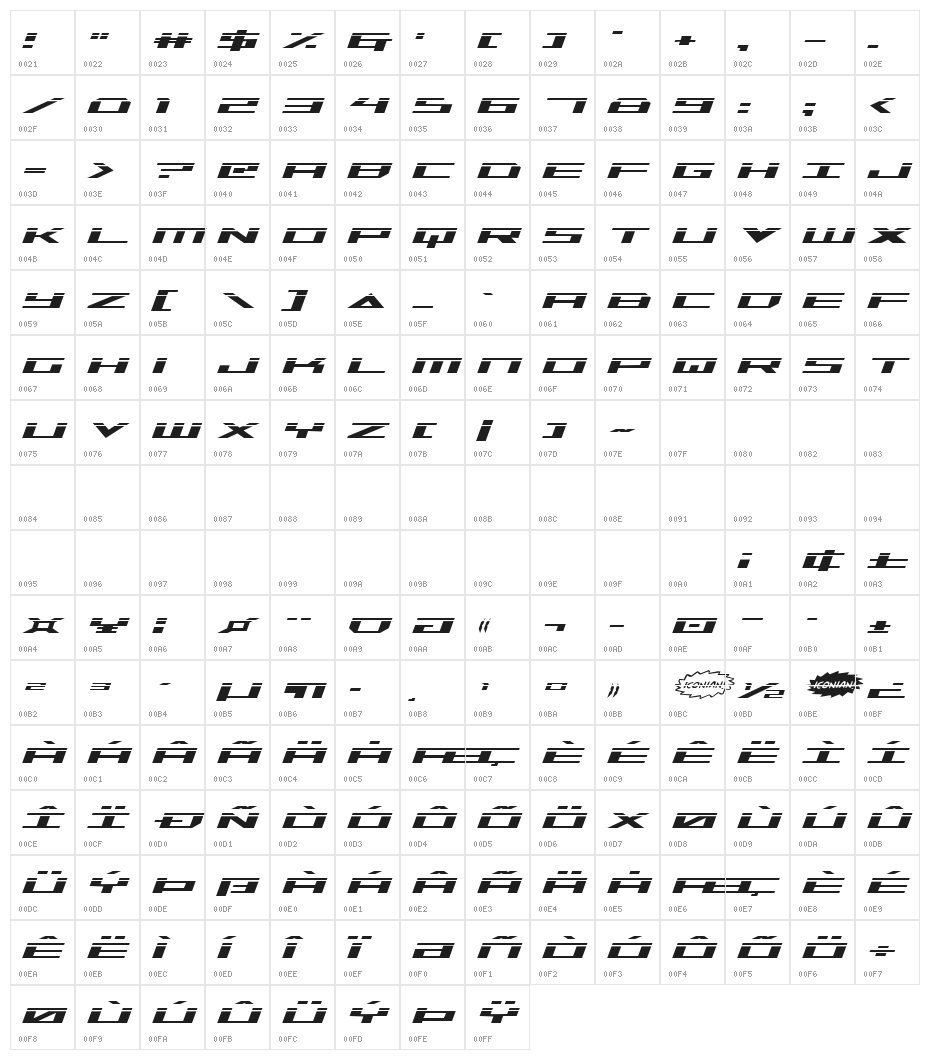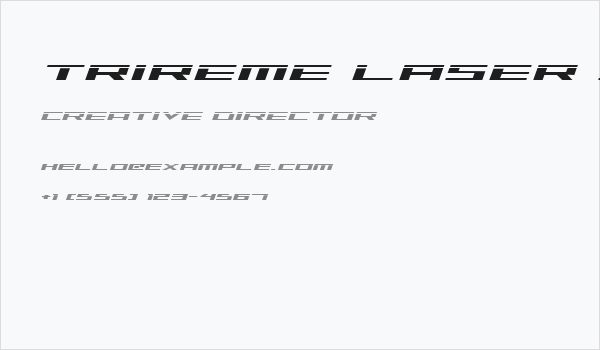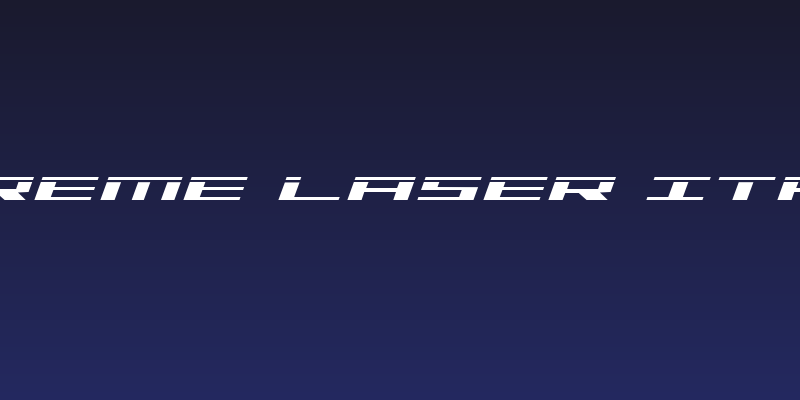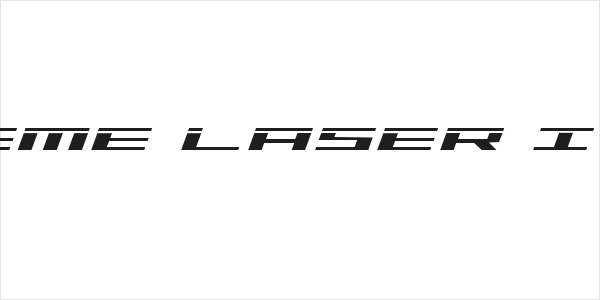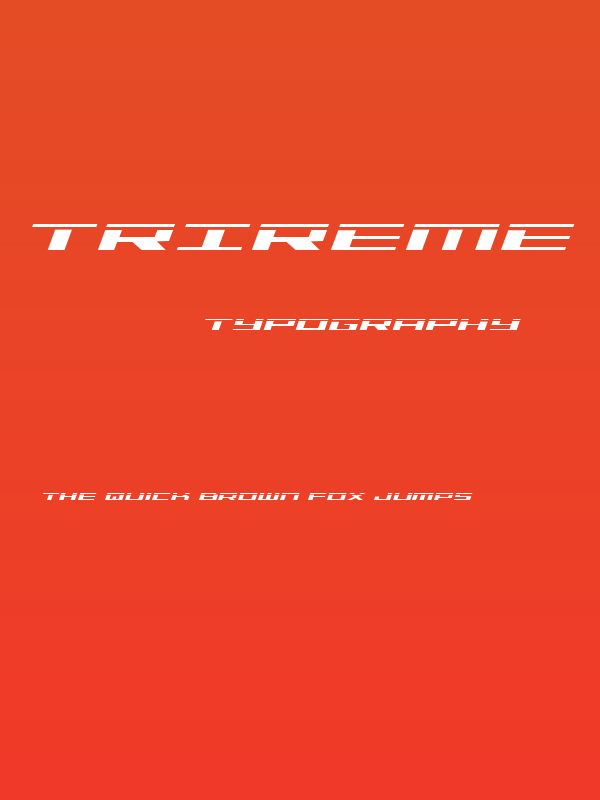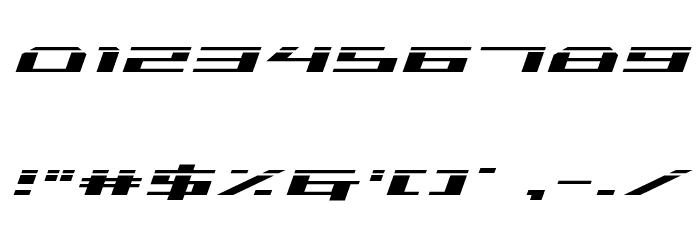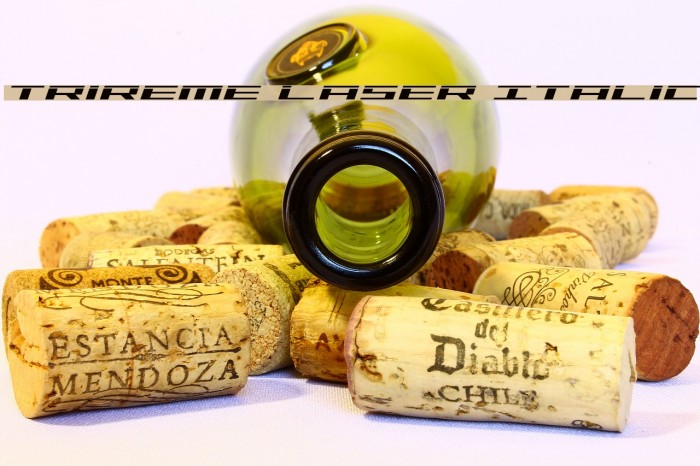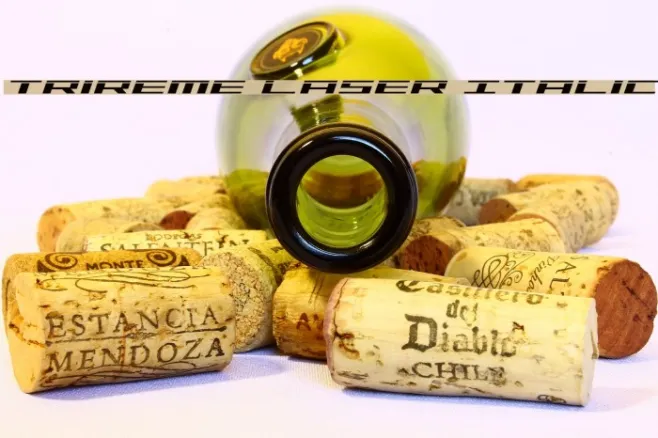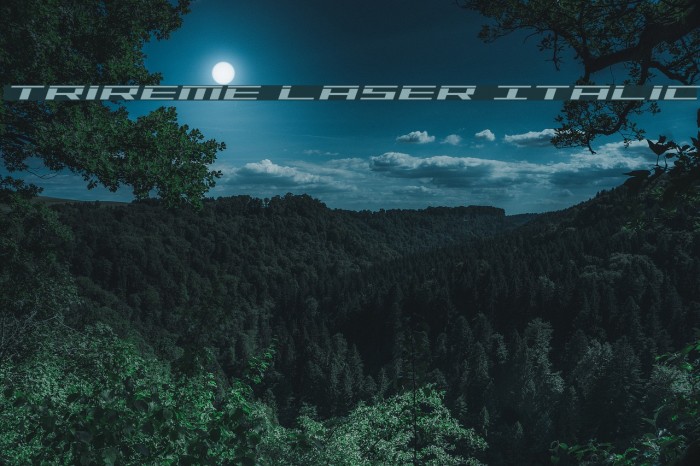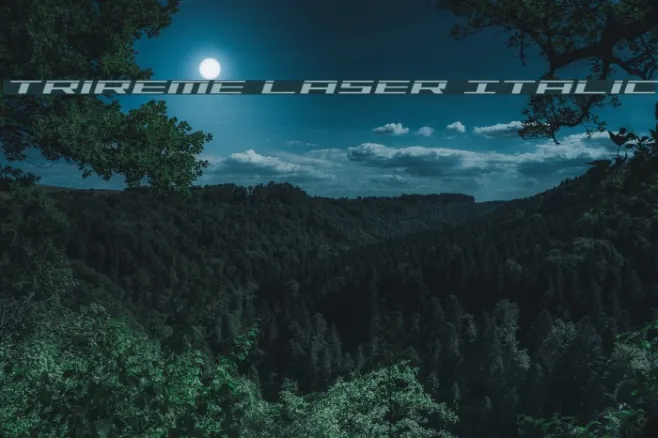
Trireme Laser Italic Font
Trireme Laser Italic Description
This font features a futuristic and dynamic style, characterized by sharp angles and a slanted, italicized form. The letters are constructed with a geometric precision, giving them a sleek and modern appearance. The uppercase and lowercase characters maintain a consistent design, with a strong emphasis on diagonal lines and pointed edges. The numerals and special characters follow the same aesthetic, ensuring uniformity across all glyphs. The overall design suggests a sense of speed and technology, making it ideal for projects that require a cutting-edge look.
| Proposed Projects | Ideal for technology branding, sci-fi movie posters, video game titles, and futuristic-themed designs. |